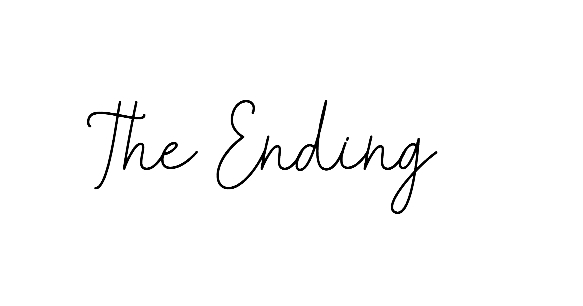
The Ending
The Ending is a handwritten font made by Rayvaldo Rizki Pratama Augusta (2023). The letters have the small wobbles and personality of real handwriting, so your text feels warm instead of printed. You can download it for free and test it with your own words in the preview above.
- Designer: Rayvaldo Rizki Pratama Augusta
What You Can Type With The Ending
You get every letter from A to Z in both cases and all the numbers from 0 to 9, which means The Ending can handle full sentences, dates and prices. Everyday marks like &, !, ? and $ are there too. Thanks to its accented letters, it also works for Spanish, French, Portuguese and Italian, not just English.
Ligatures and Smart Letters in The Ending
The Ending is a natural fit for greeting cards, journal pages and friendly social posts. Set it a bit larger than you would a normal text font. Handwriting styles lose their charm once they get too small to read comfortably.
Does The Ending have ligatures?
Yes. The Ending has ligatures that turn on by themselves in most design apps and browsers, so you don't need to do anything special.
Does The Ending support accented letters?
Yes. The Ending includes the accented letters needed for Spanish, French, Portuguese and Italian, so it works for more than just English.